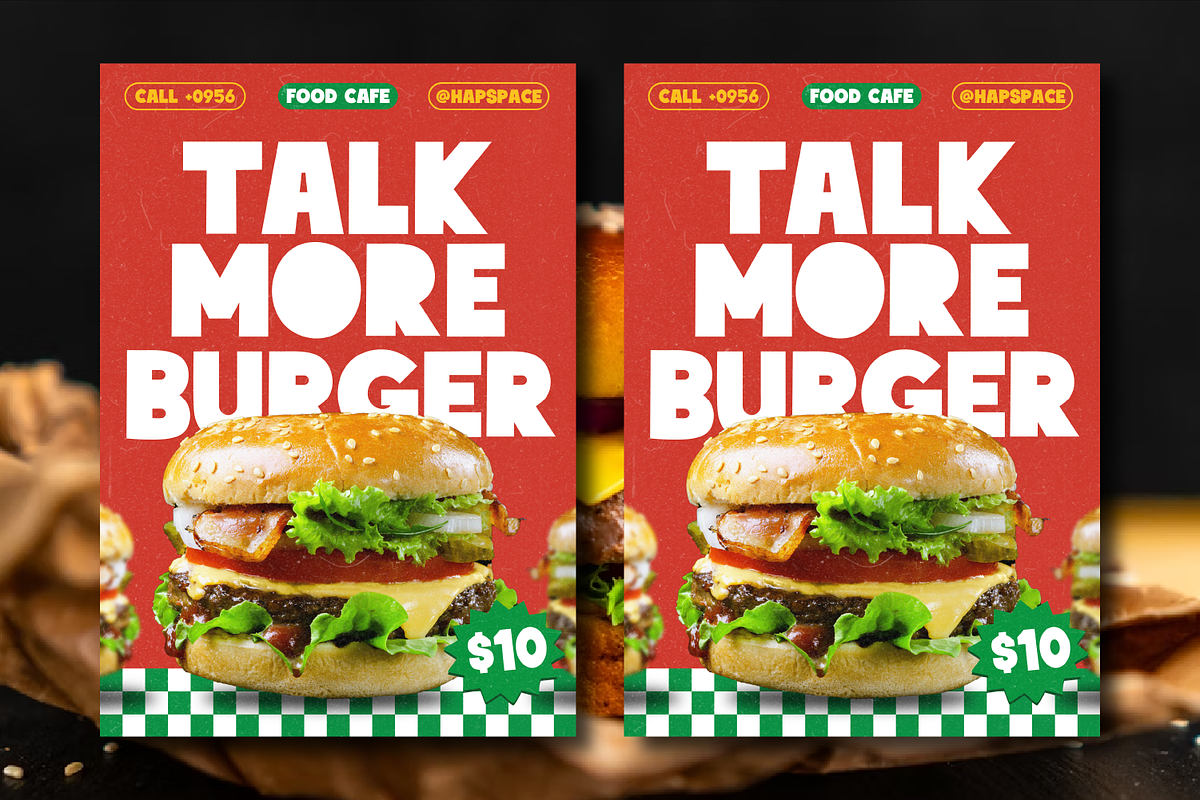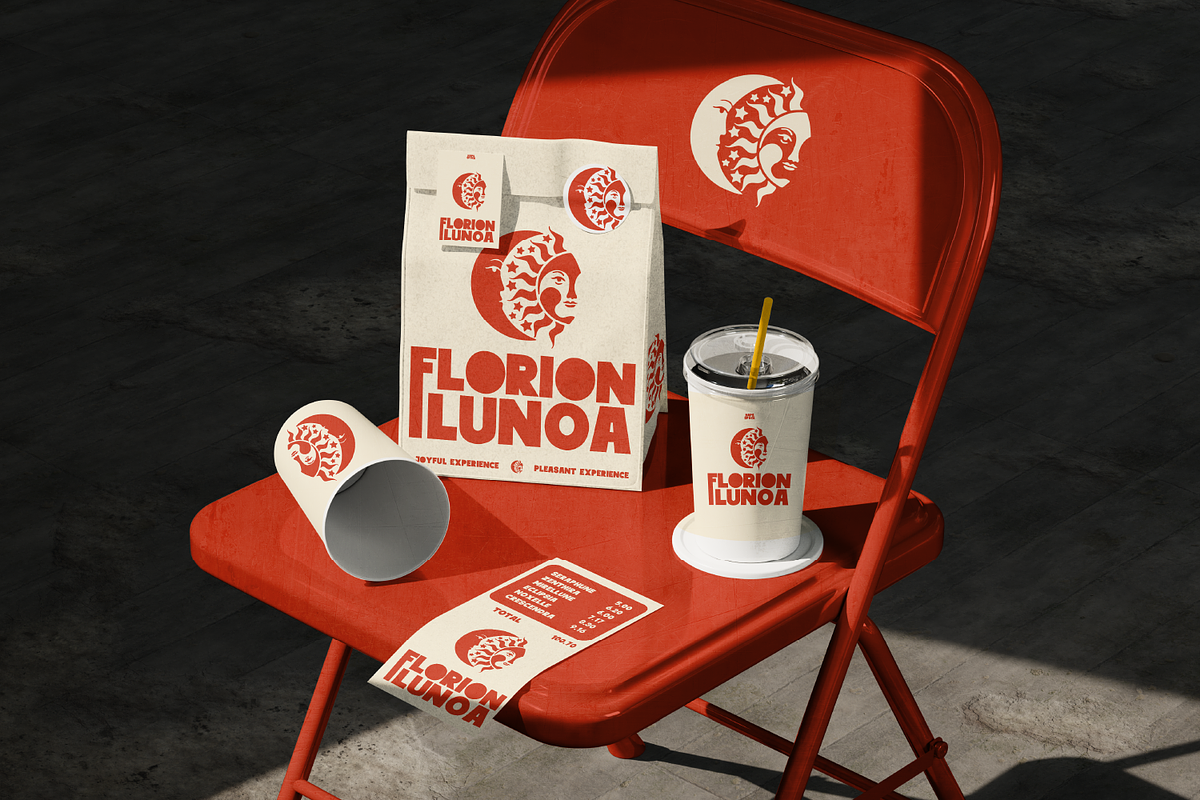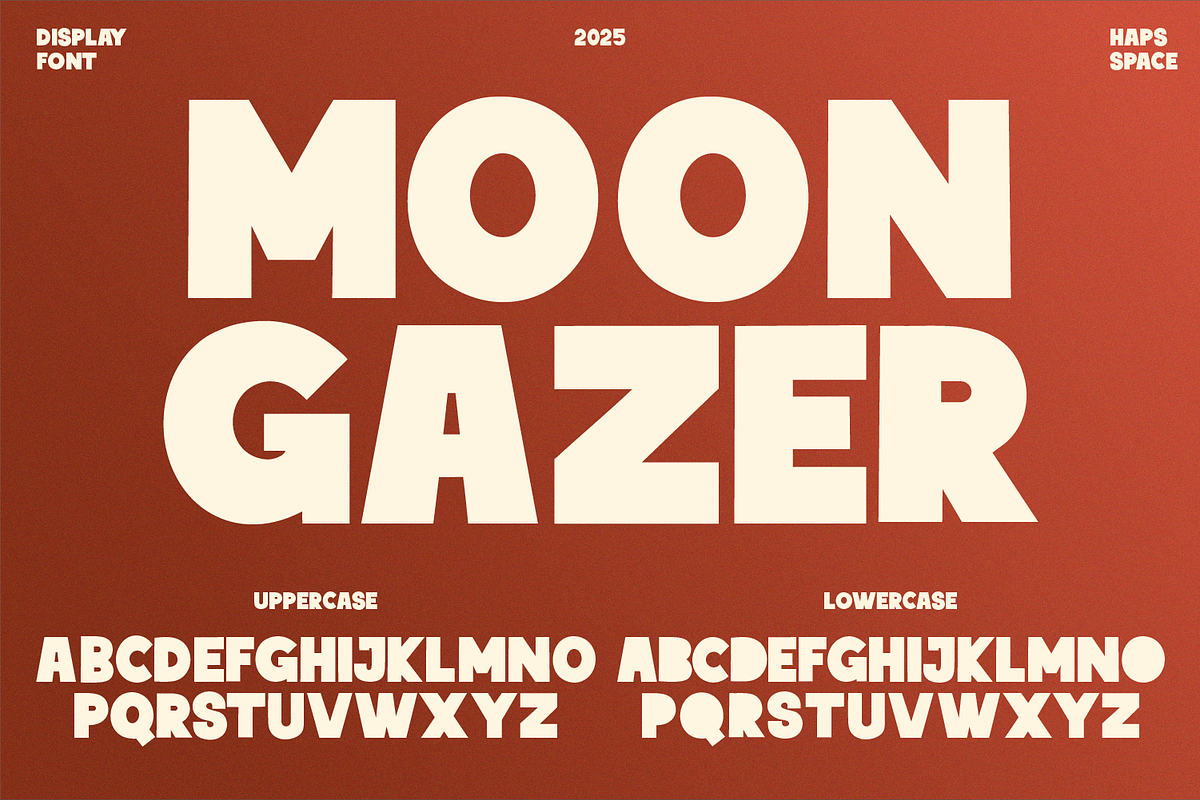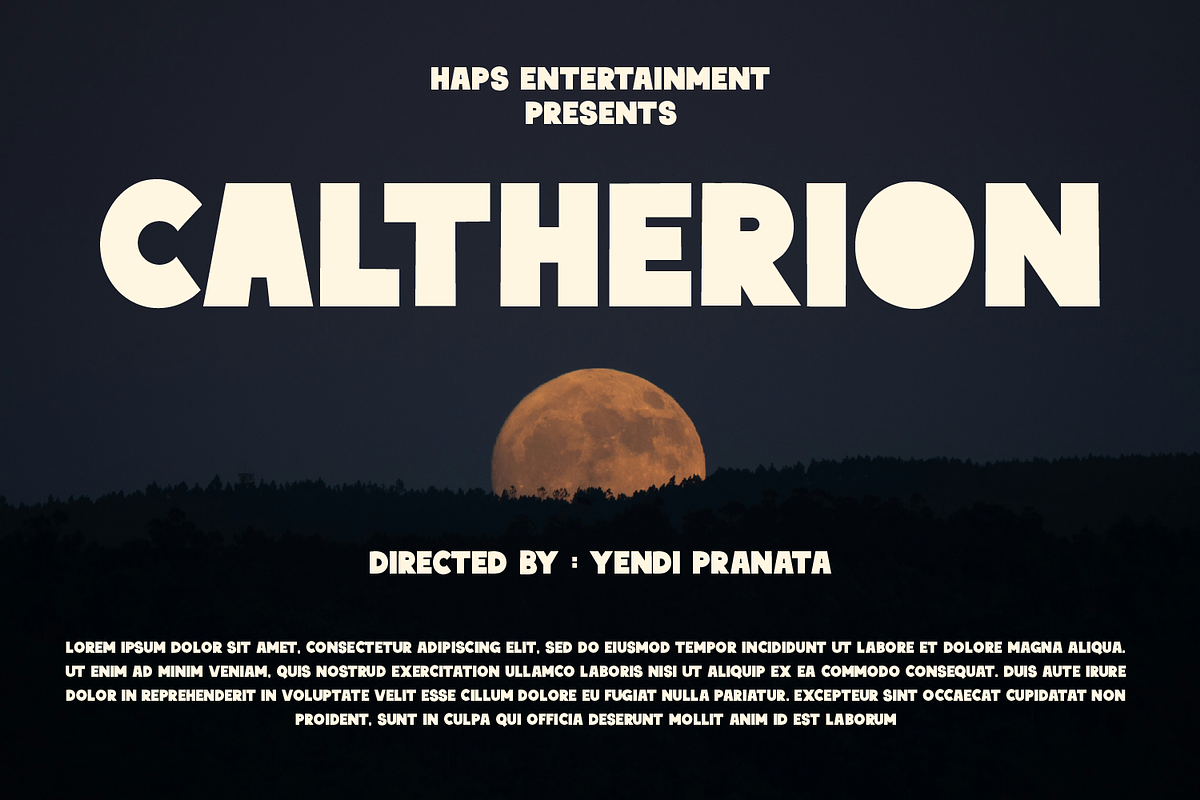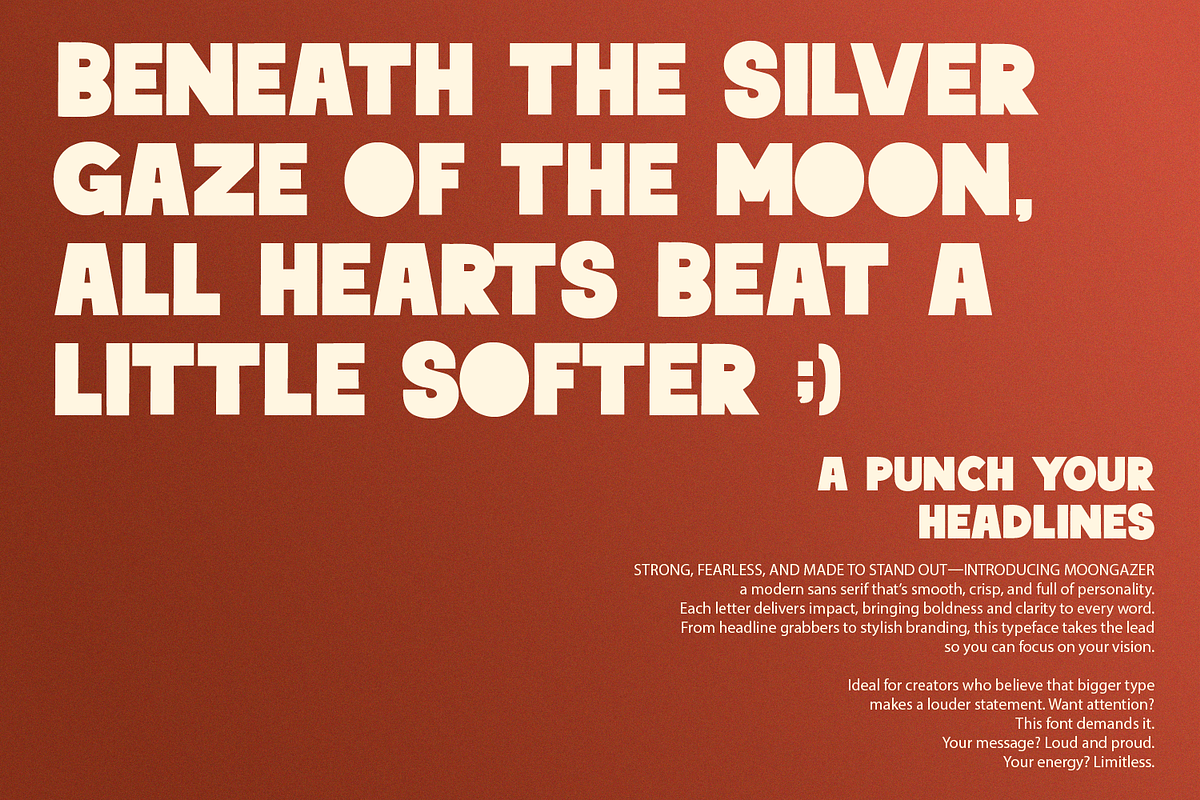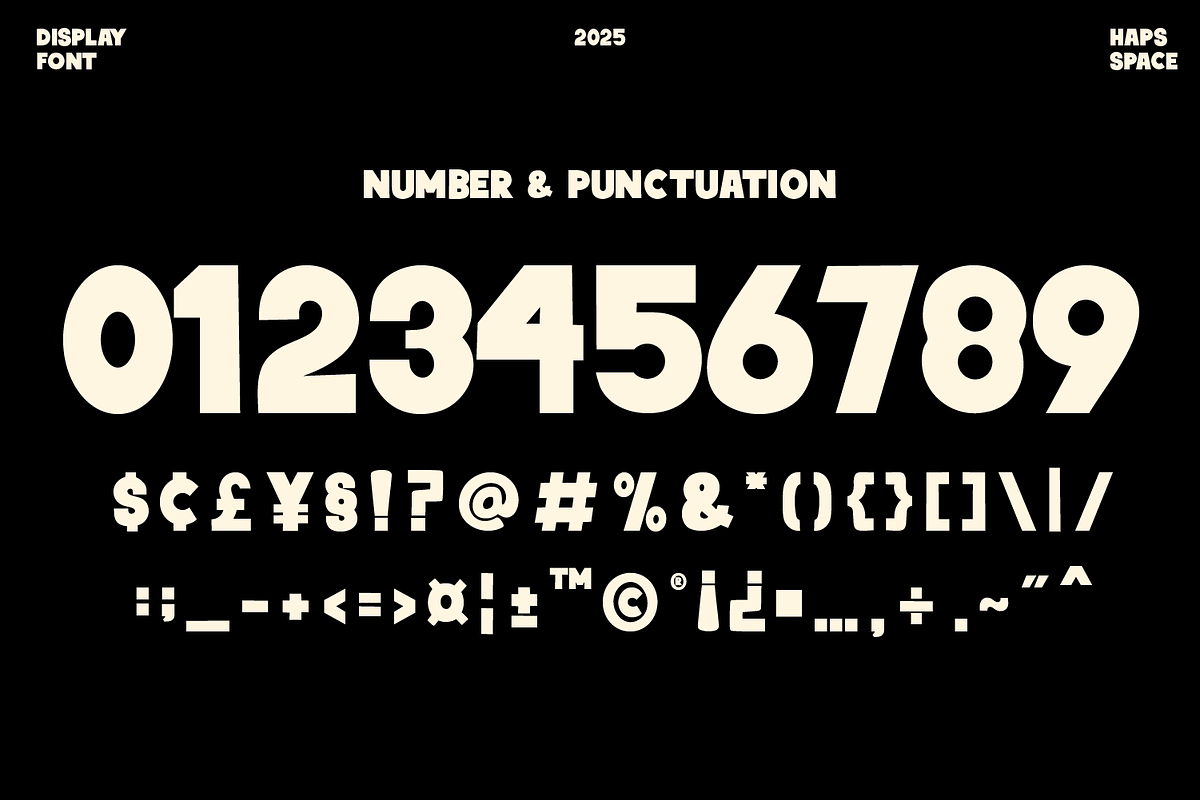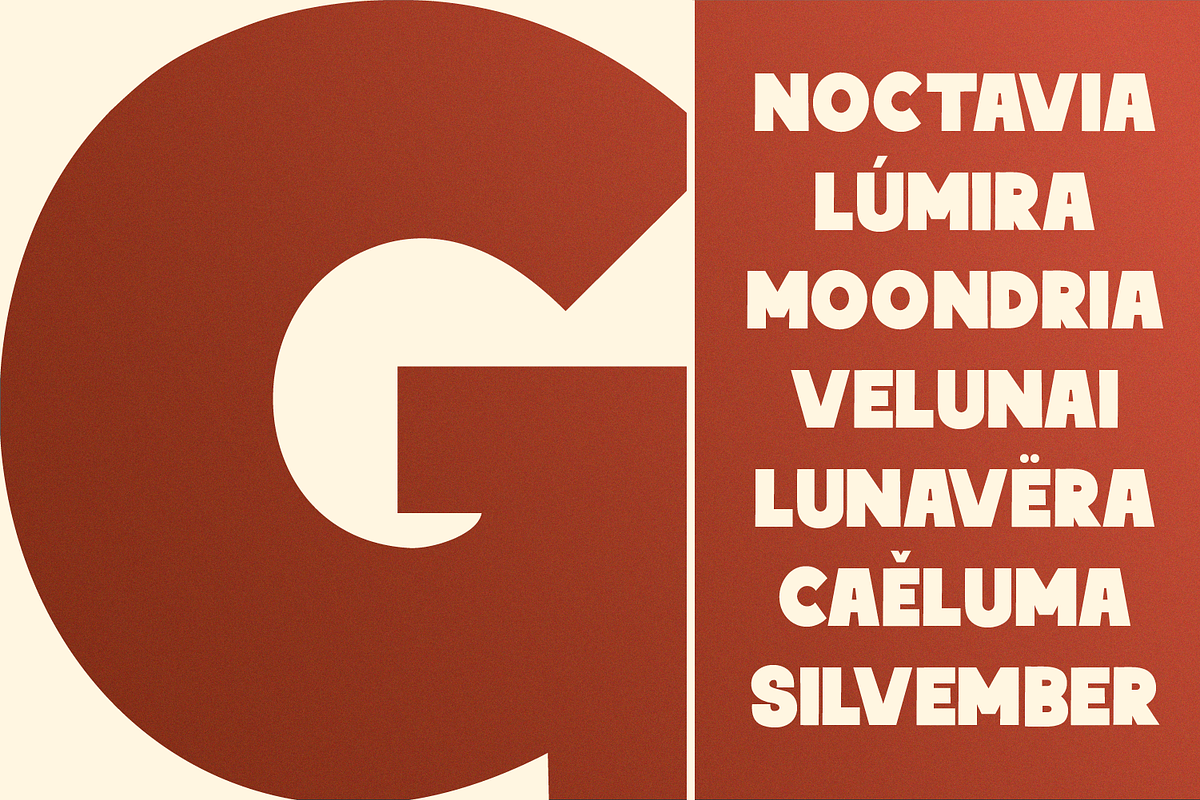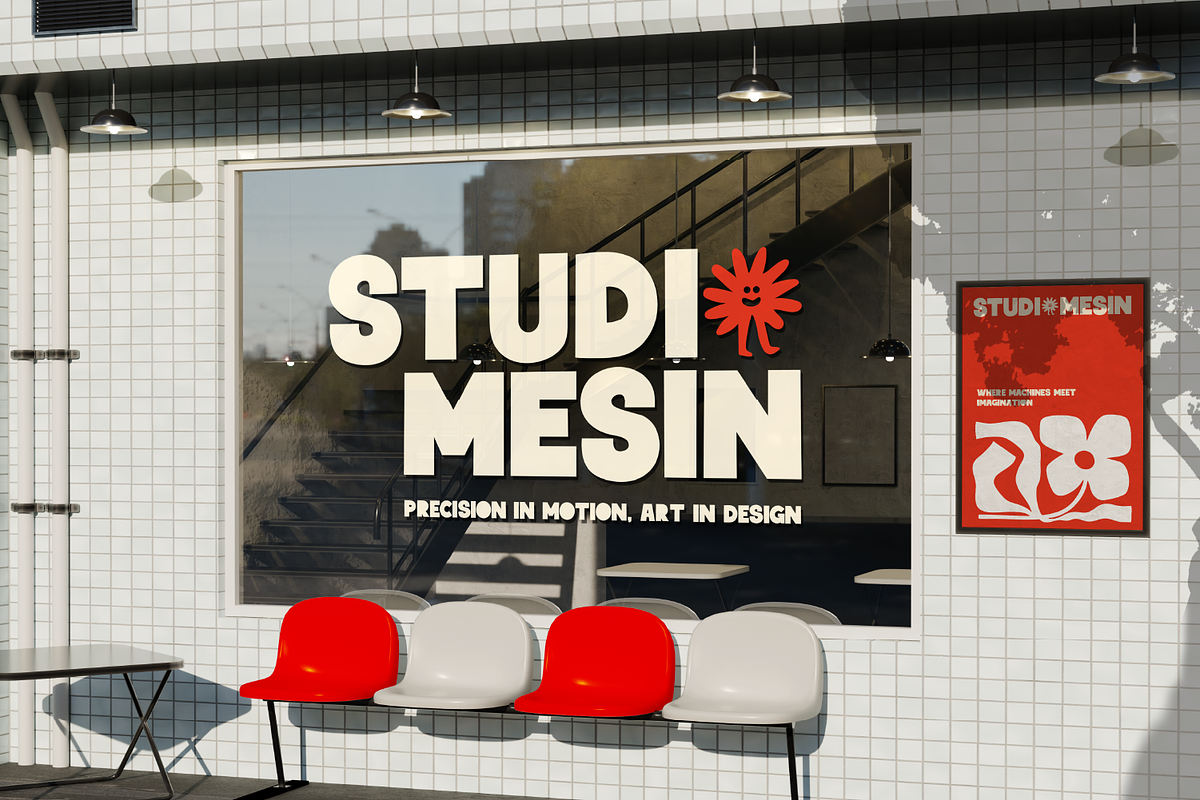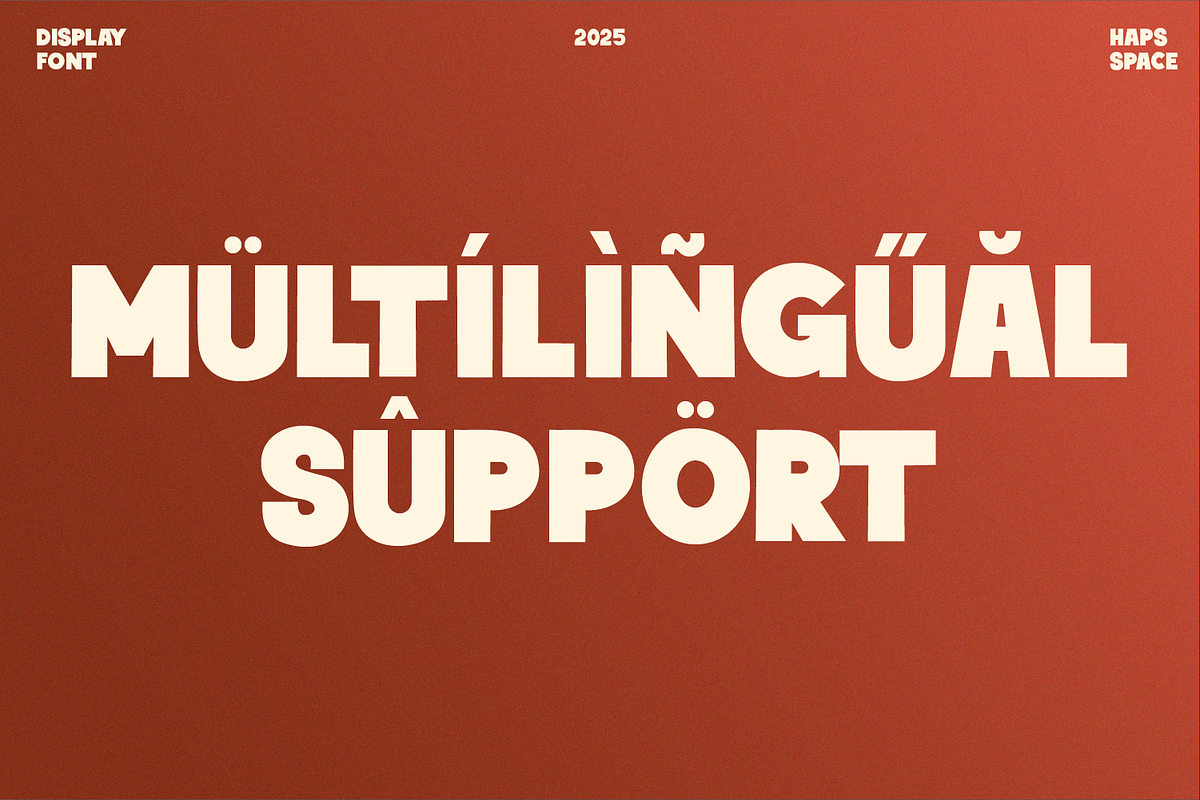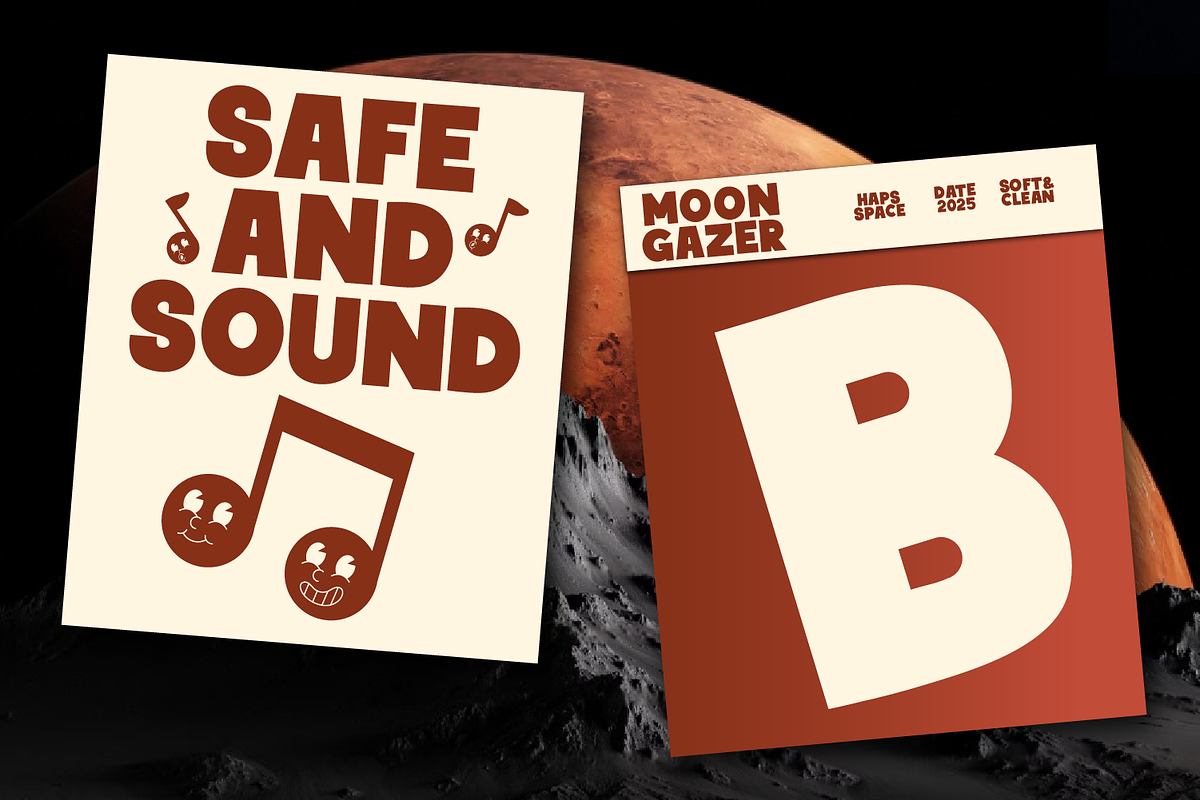
Moongazer Bold Display
Introducing MOONGAZER – a bold display font with a clean, modern, and powerful personality. Its chunky letterforms and smooth edges make it perfect for headlines, posters, branding, social media, merchandise, and editorial design.
Designed to stand out, MOON GAZER combines soft roundness with strong geometric shapes, giving your typography a futuristic yet approachable feel. This font is highly versatile, suitable for both digital and print projects, and especially effective when you need a striking, eye-catching title.
Bring your creative vision to life with MOONGAZER – a typeface that shines as bright as the moon.
- Unique Letterforms